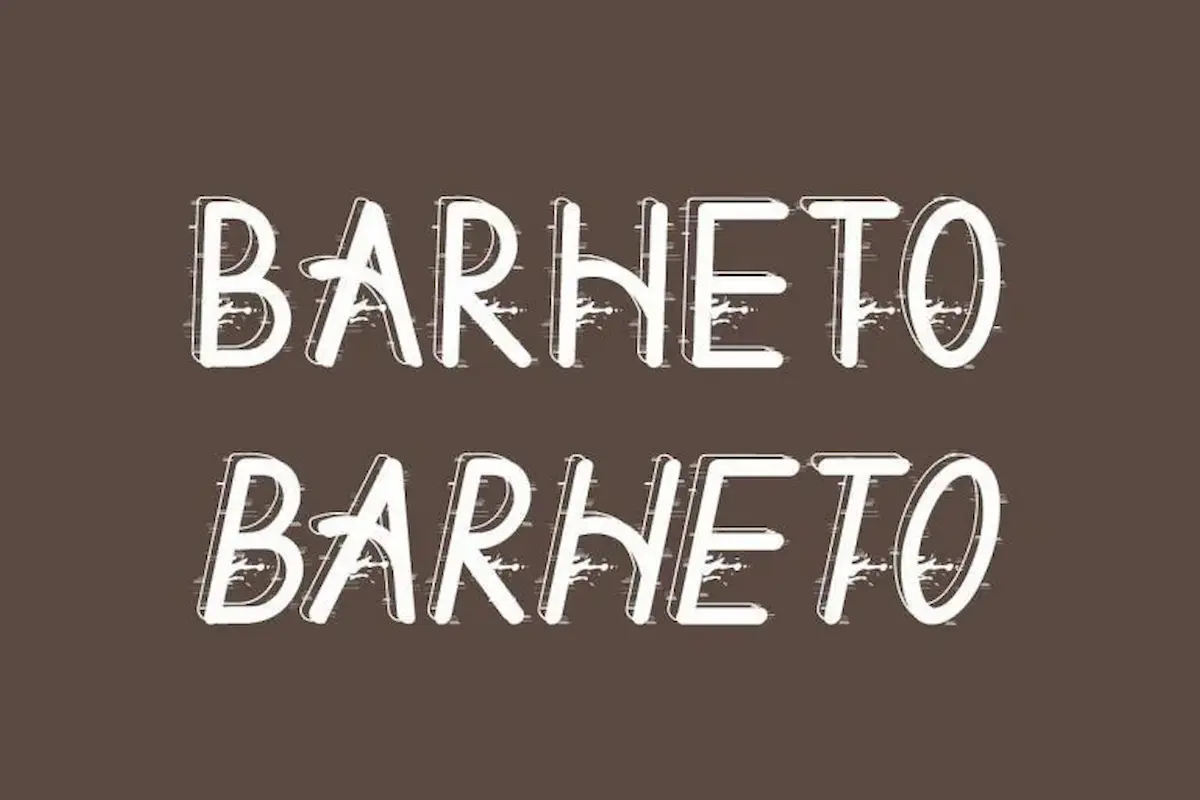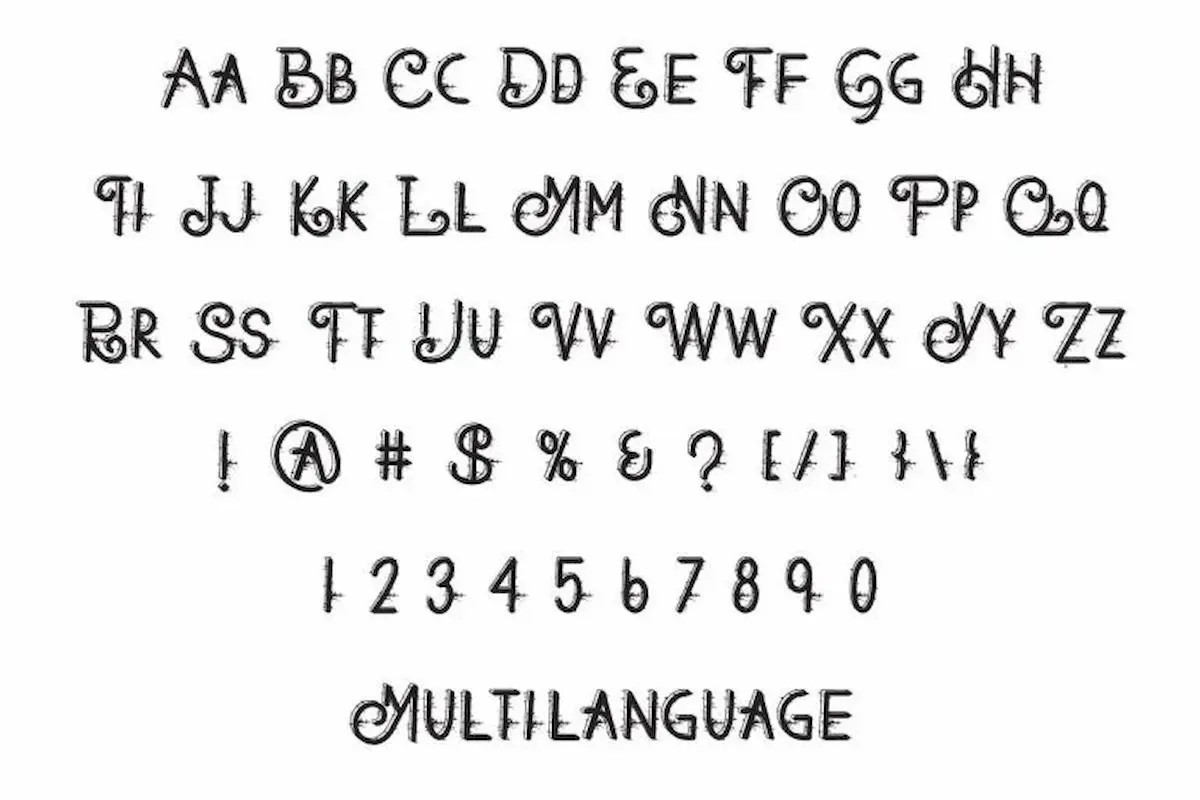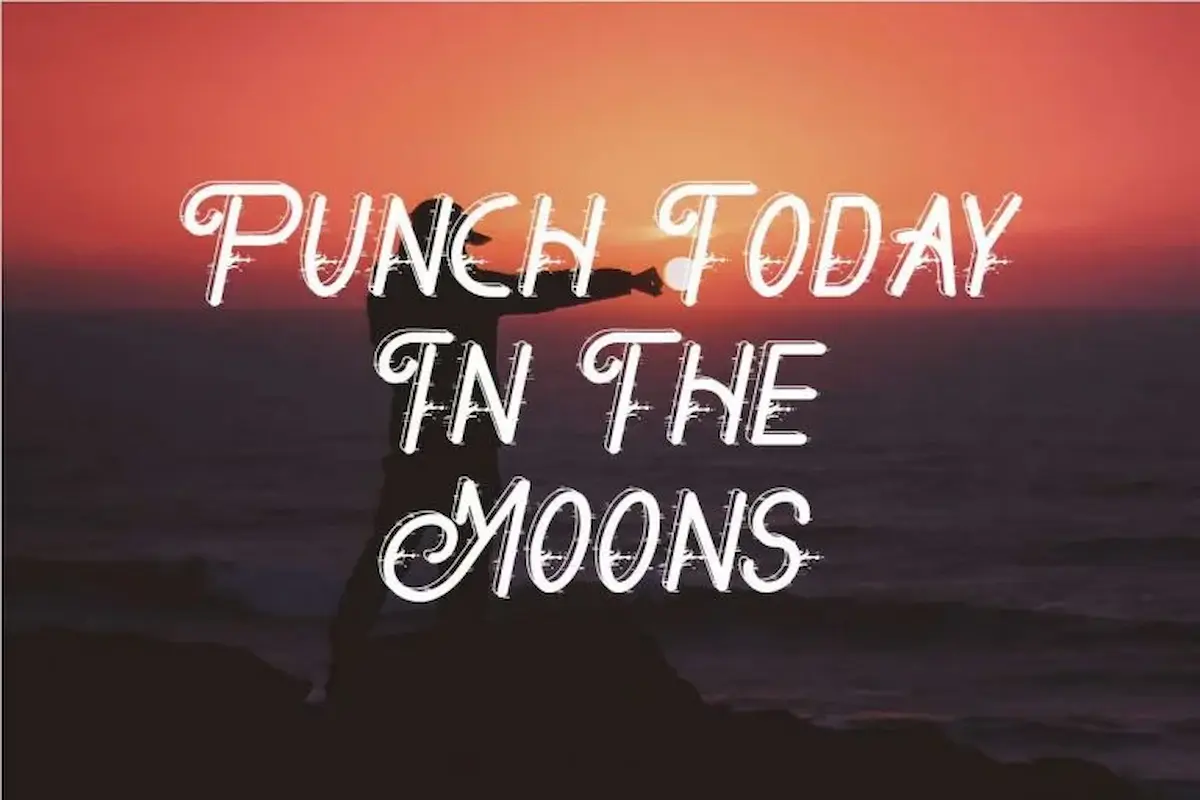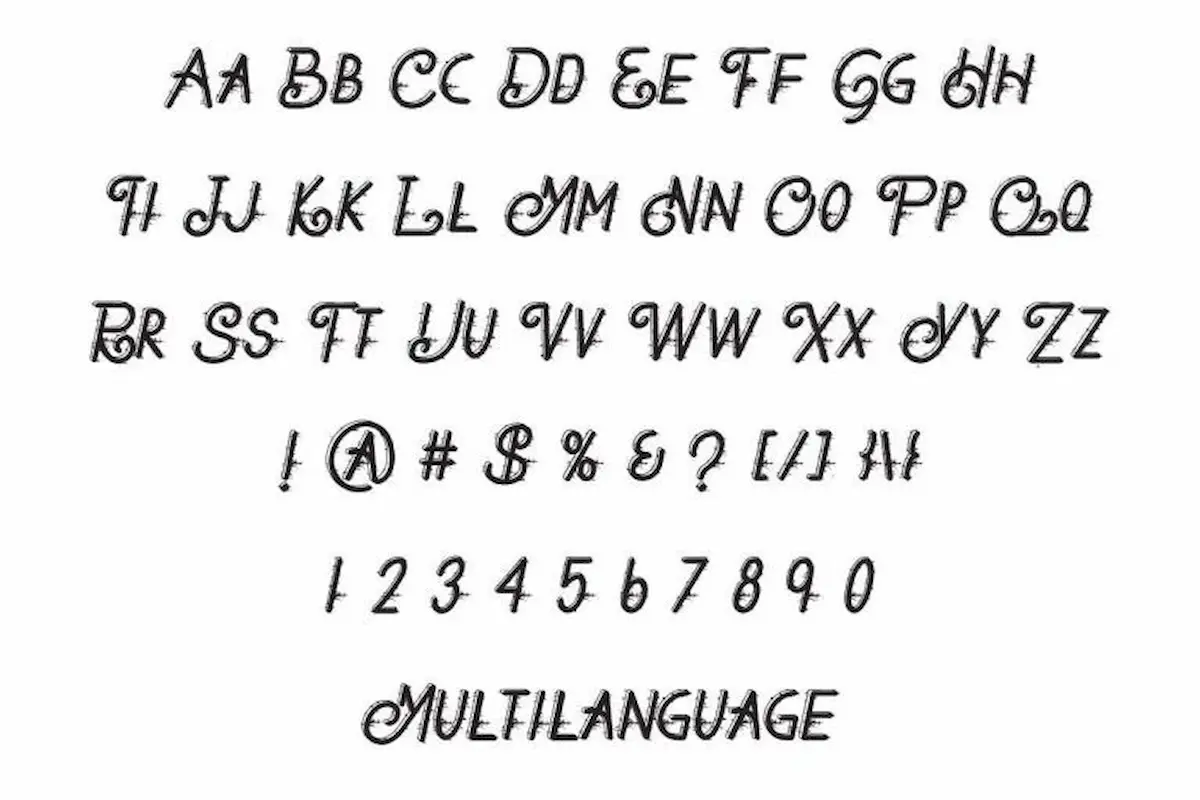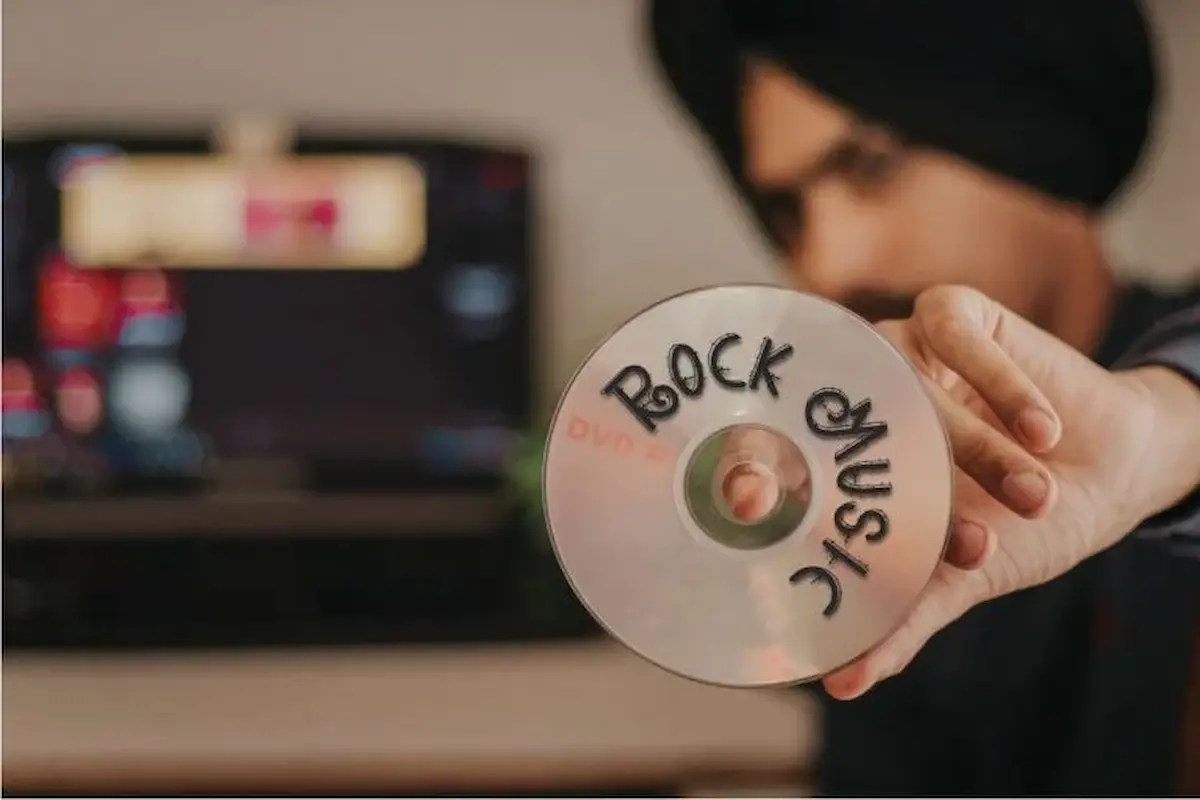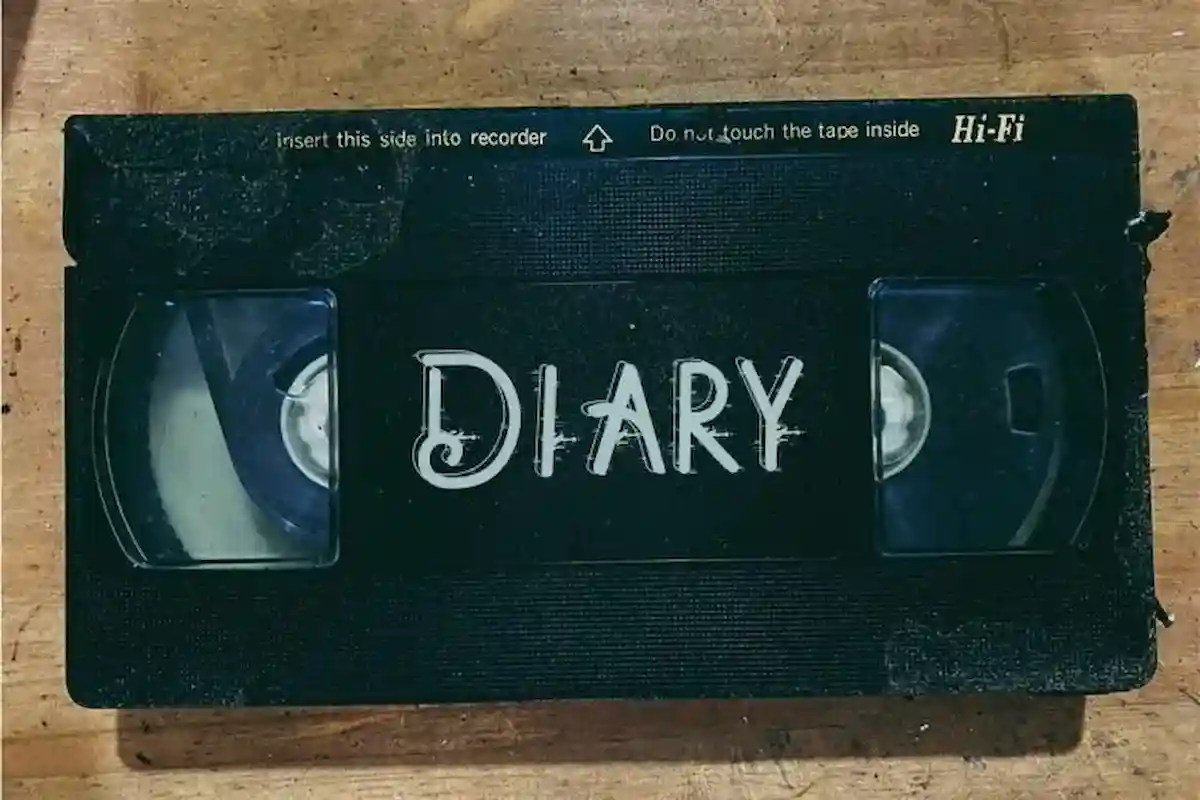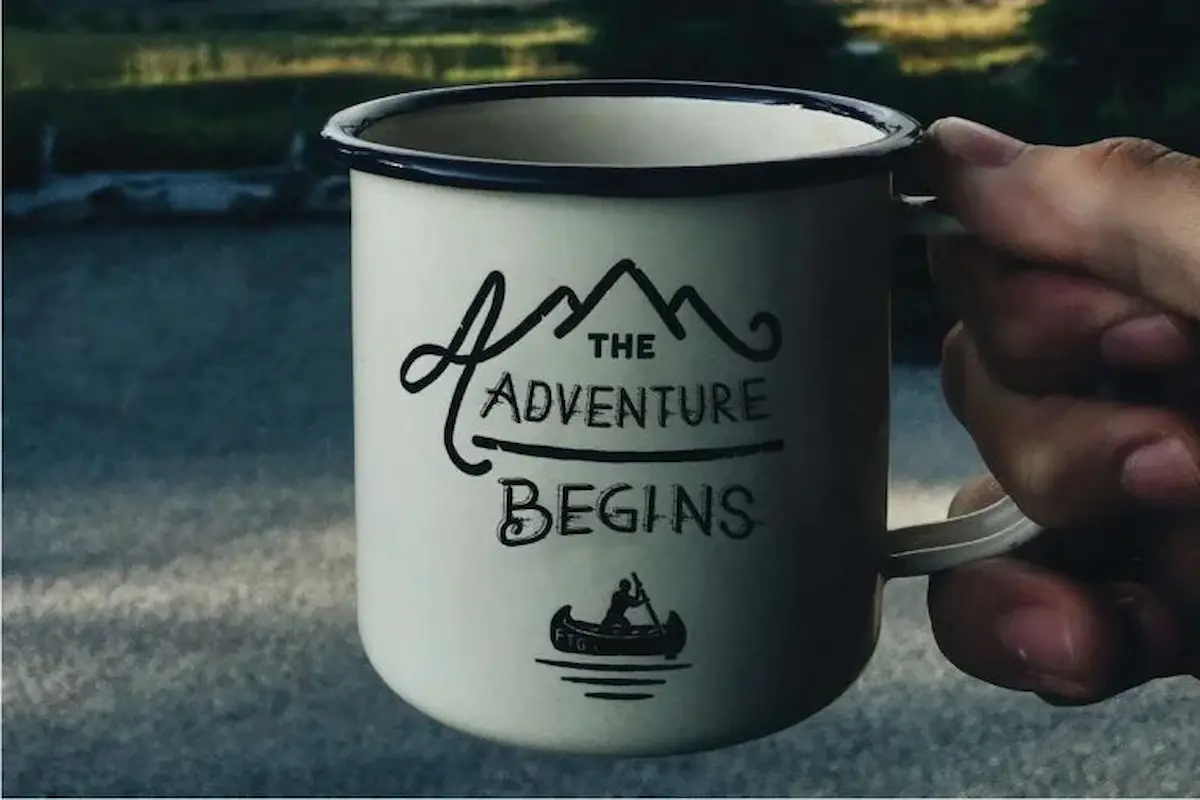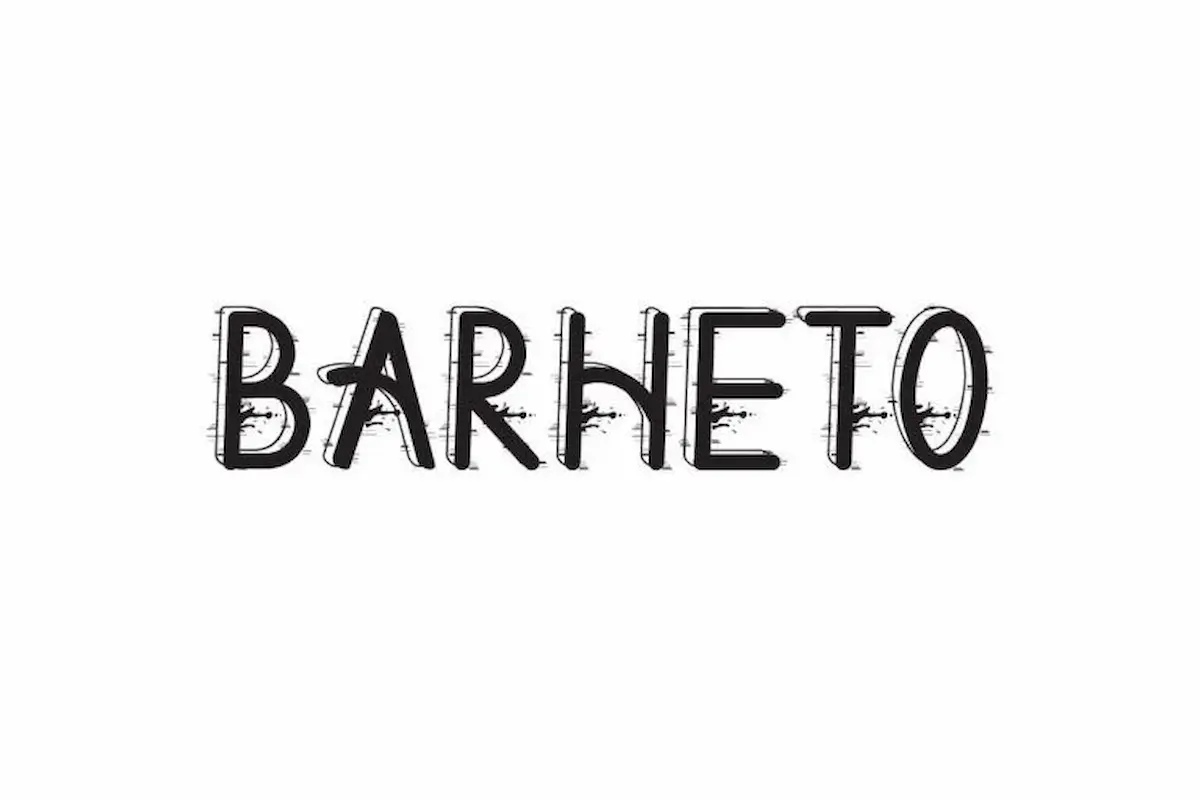
Barheto Font is a vintage classic display font by NihStudio, made in 2021. Barheto Font will great for cafe, restaurant, music, western, automotive etc.
Handcrafted here in our Studio , Indonesia. Barheto Font will be great for any projects (require extended license) including : branding, logo, stationery, business card, signage, flyer, brochure etc. Barheto comes great for many business industries : restaurant, cafe, music, singer, motor/car automotive, property etc